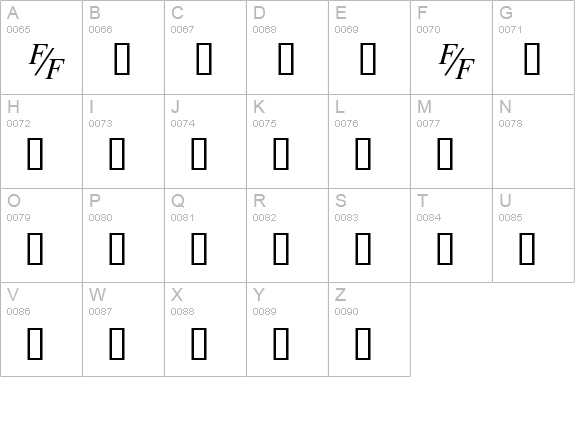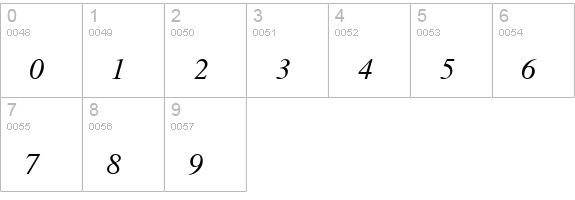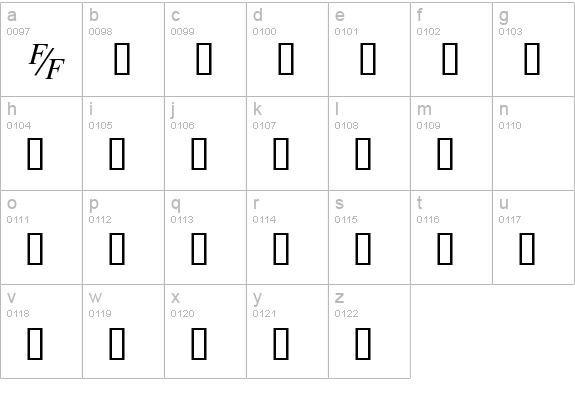
TmsFE Italic Font Details
TmsFE Italic is a distinctive, italic variant in the TmsFE typeface family \xE2\x80\x94 well suited to design and typography projects.
Introducing TmsFE Italic, a stunning and versatile font that effortlessly combines elegance and modernity. This font is the perfect choice for those seeking a touch of sophistication with a contemporary twist. TmsFE Italic boasts clean lines and sleek curves, making it visually pleasing and easy on the eyes. With its italic style, TmsFE Italic adds a touch of artistic flair to any project, whether it be a logo, branding materials, website design, or social media graphics. The italicized letters create a sense of movement and dynamism, capturing the attention of viewers and adding a unique charm to your typography. But what truly sets TmsFE Italic apart is that it is freely available to download at FontsMarket.com. Yes, you read that right - this extraordinary font can be yours at no cost. Say goodbye to expensive font subscriptions or limited access, because TmsFE Italic ensures that everyone can enjoy its beauty without breaking the bank. By choosing TmsFE Italic, you not only elevate your design projects with its exquisite aesthetics, but you also make a smart and budget-friendly decision. This font allows you to create professional and captivating designs without compromising on quality or your wallet. So why wait? Download TmsFE Italic today from FontsMarket.com and unlock a world of creative possibilities. Embrace the freedom to design stunning visuals that leave a lasting impression. With TmsFE Italic, you can effortlessly elevate your typography game, all while enjoying the convenience of a free and easily accessible font.